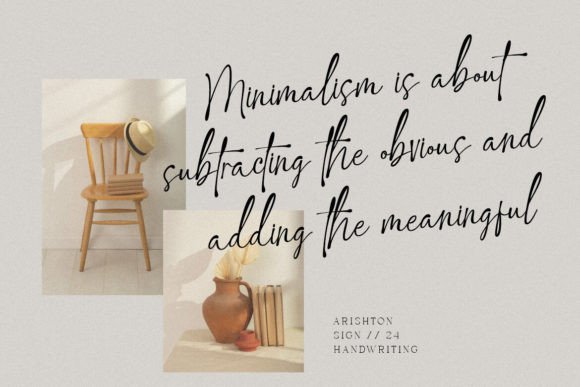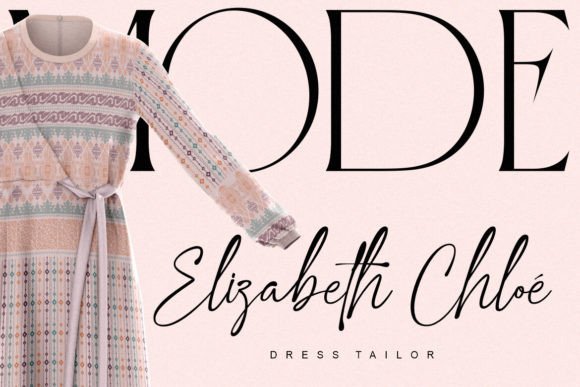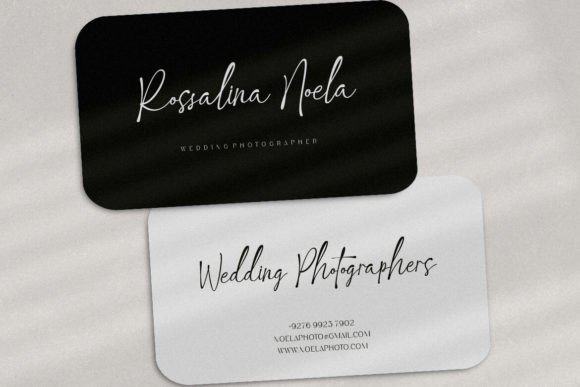
Introduction to Prishton Sign Font
Prishton Sign is a natural and modern handwriting font carefully created with a touch of elegance.
Whether you’re looking for fonts for Instagram or signature handwriting for DIY projects, this font will turn any creative idea into a true piece of art This font is perfect also for creating print templates like posters, branding, quotes, blog titles, fashion, invitations, greeting cards, business cards, clothing, stationery or anything else.
Key Features of Prishton Sign Font
Why Choose Prishton Sign Font?
Prishton Sign Font offers exceptional quality and versatility, making it a valuable addition to your design toolkit. Whether you’re creating for personal projects or commercial use, Prishton Sign Font delivers professional results.